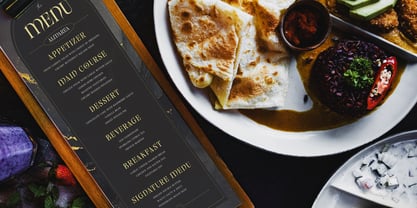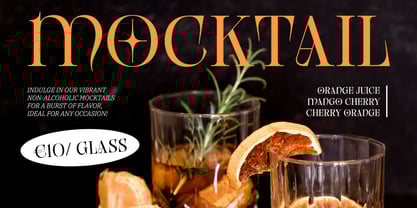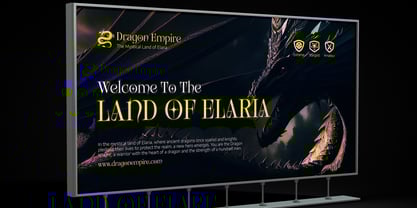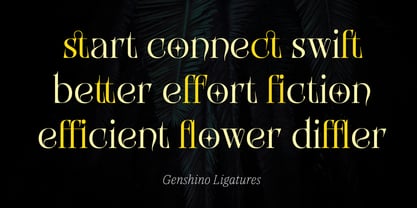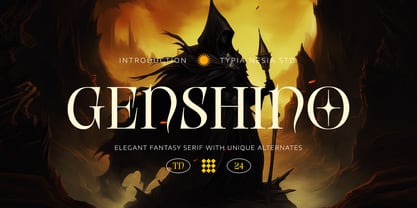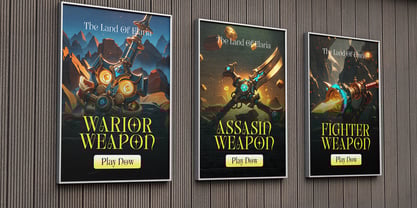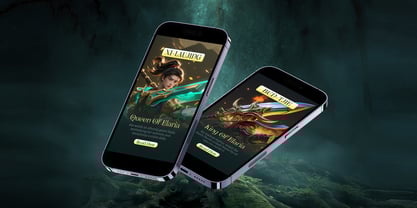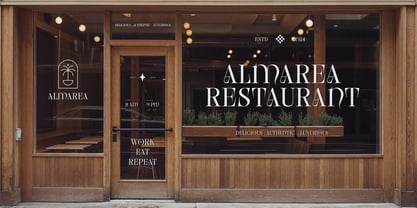
Genshino
Genshino - Elegant Luxury Fantasy Serif font - Game Display Font with Unique Alternates
Genshino is an Elegant Fantasy Serif font with a touch of whimsy. Its graceful and imaginative design elements make it perfect for projects that require a combination of elegance and fantasy, such as branding with fantasy themes, book covers, fantasy-themed projects, wedding invitations, and editorial design, fantasy gaming, packaging, logo design, menu design and any more projects that require a touch of elegance, fancy and fantasy. The versatile font style ensures it looks stunning in both print and digital formats, adding a magical touch to logos, headlines, and body text. Comes packed with features to elevate your creative work. It includes ligatures for smooth character combinations, a complete set of uppercase and lowercase letters, punctuation, numerals, and a variety of unique alternates. Designed with meticulous attention to detail, Genshino blends elegant aesthetics with fantasy elements, making it a reliable choice for designers looking to create unique and enchanting designs.